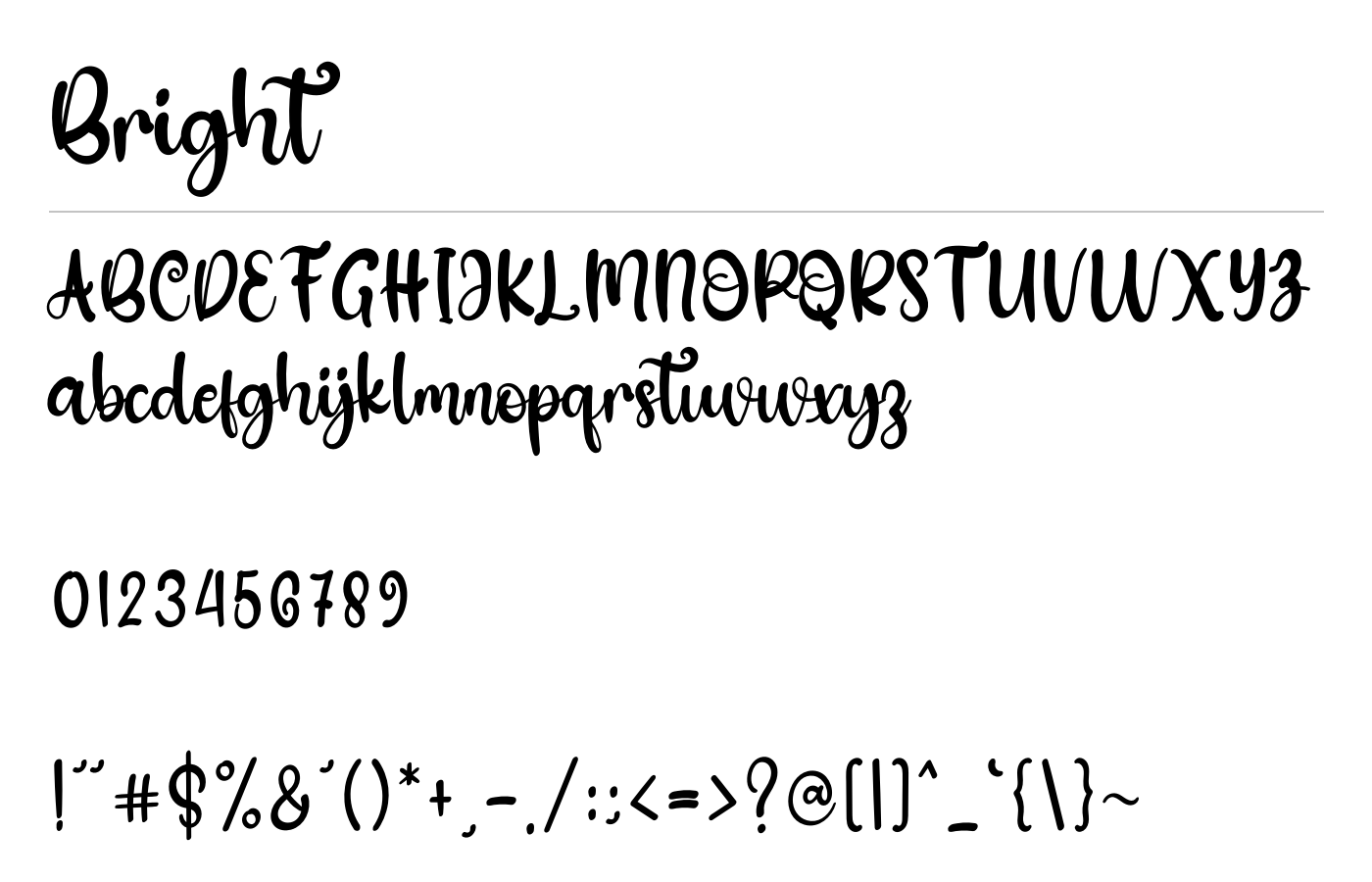
Bright Font is a playful and lively handwritten script with smooth, rounded strokes and charming flourishes, giving it a warm and personal feel. Its medium weight and balanced x-height make it perfect for creative projects, invitations, and branding that seek a friendly, approachable vibe. This font shines in contexts that want to convey cheerfulness and creativity while maintaining readability.
Bright Font
About Bright Font